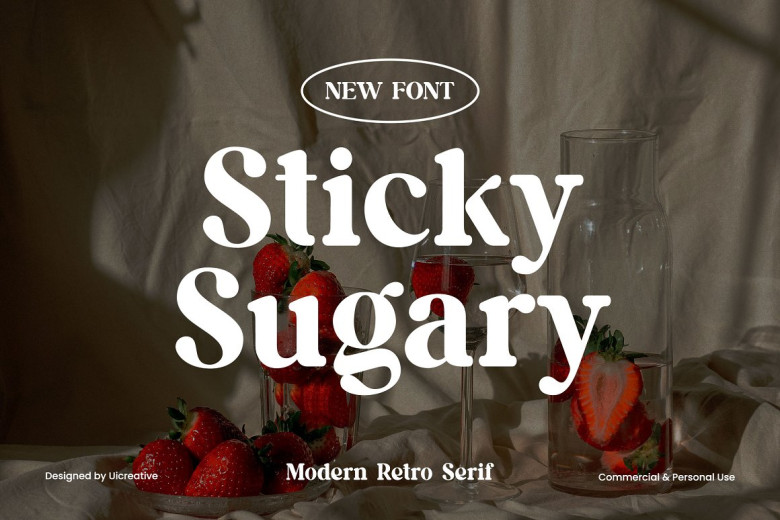
Sticky Sugary Font
Sticky Sugary font was designed by UICreative with its retro serif bold style in mind, and can be utilized in numerous projects including signatures, stationery designs, logos, wedding invitations, typography quotes and magazine covers. Furthermore, Sticky Sugary can also be utilized for packaging designs, branding design packaging designs clothing design website headers while fashion-related editorial design also utilize this font with masculine qualities as well as feminine ones.